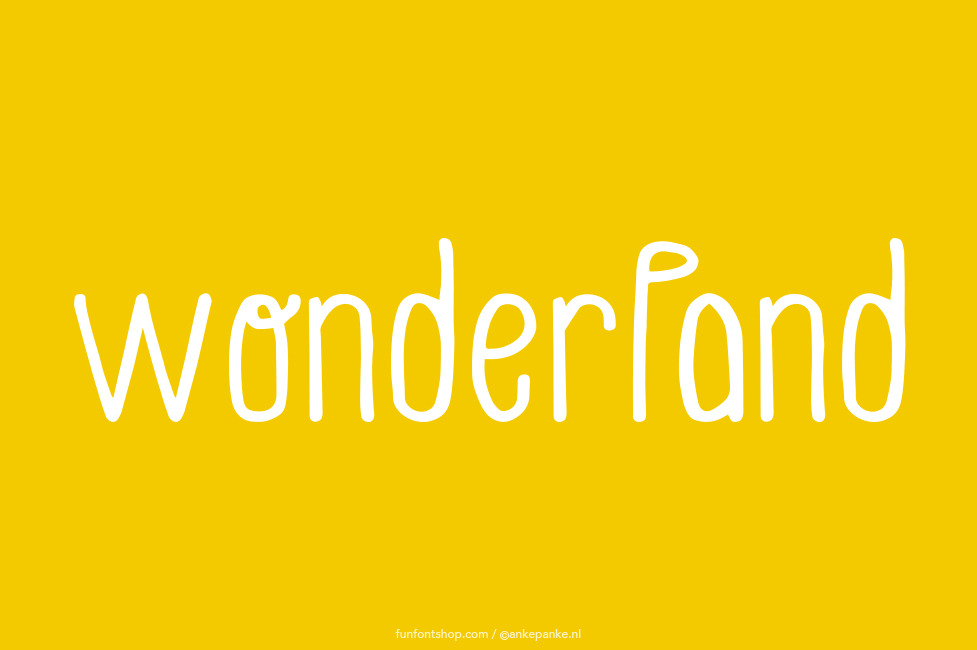
Wonderland handmade Font
The letters of this font are thin and have a sweet feeling. This font was first draw by hand, scanned, vectorized and converted to a TTF file so you type with it. They have some imperfections, but I believe that adds to the handmade feeling.
- Letters Uppercase, lowercase and numbers
- Punctuation!?#%&*+=-_,.:;'"/|£€$@({[]})
- Extra heart and star